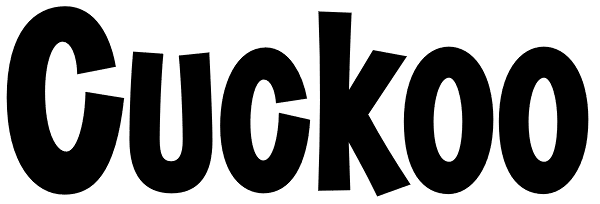
Cuckoo
Cuckoo was first seen in 1988 when I painted it on a record shop's window. Since then this hand lettered font has been there and done that. Cuckoo is strong, classic and informal display font designed to work well on any job.
Cuckoo Font